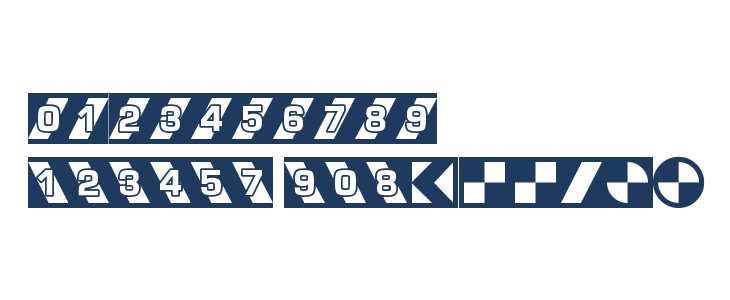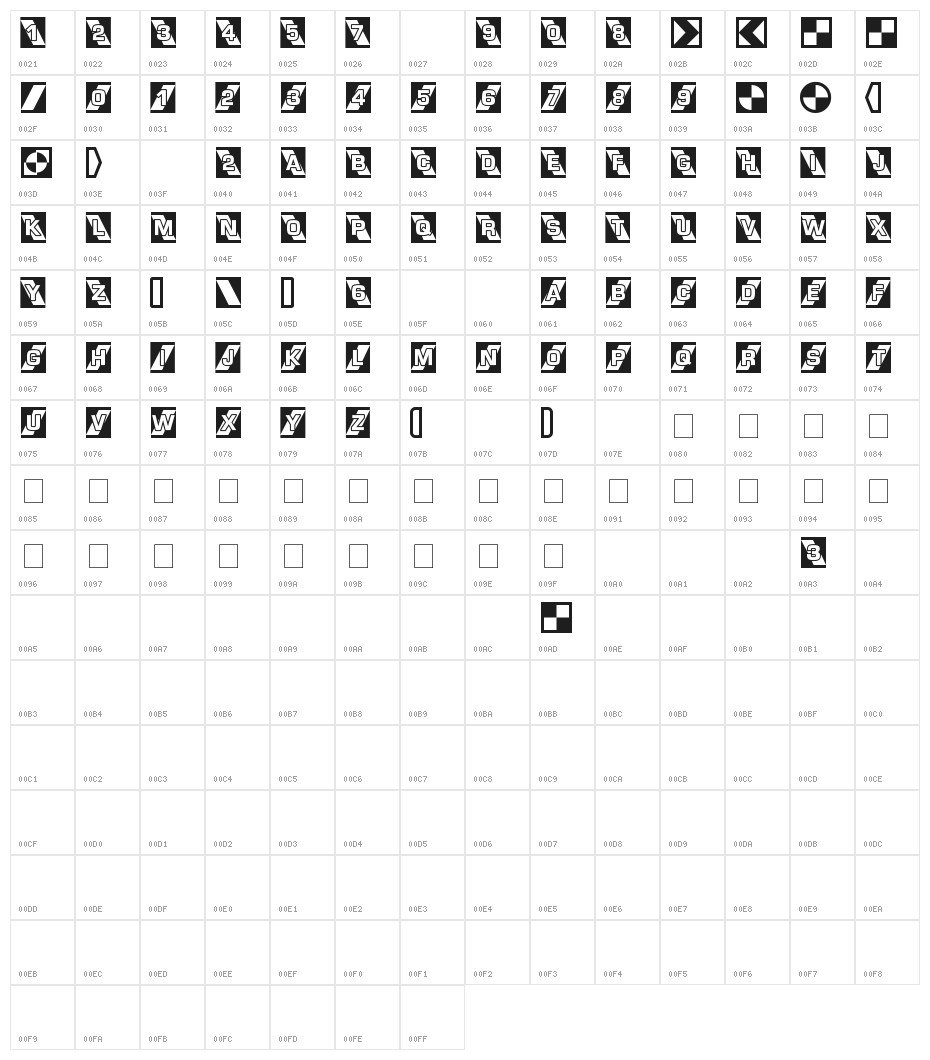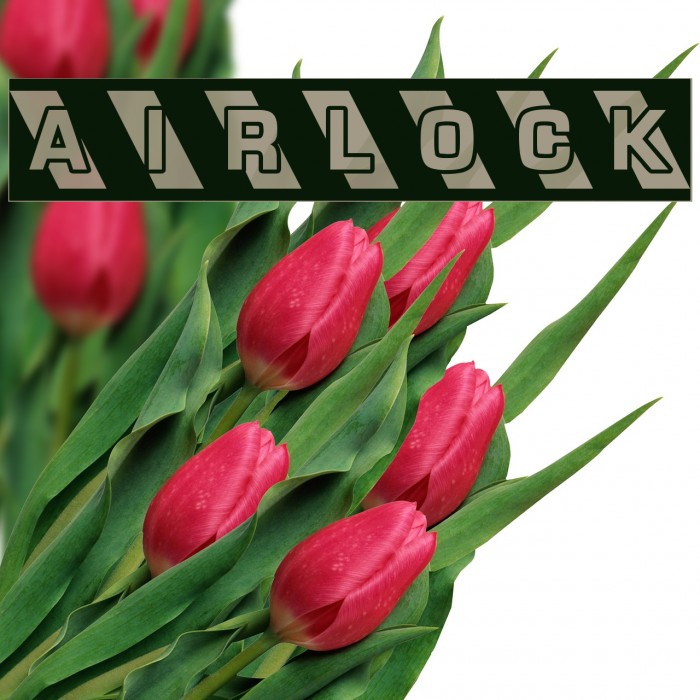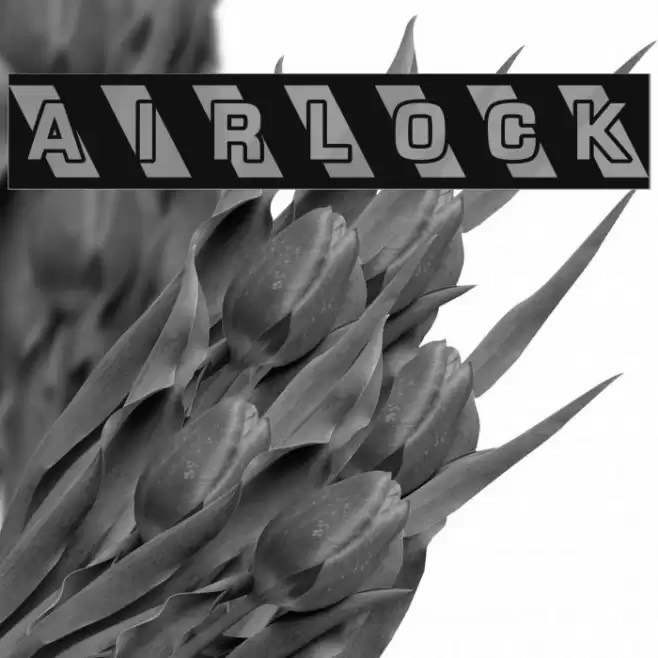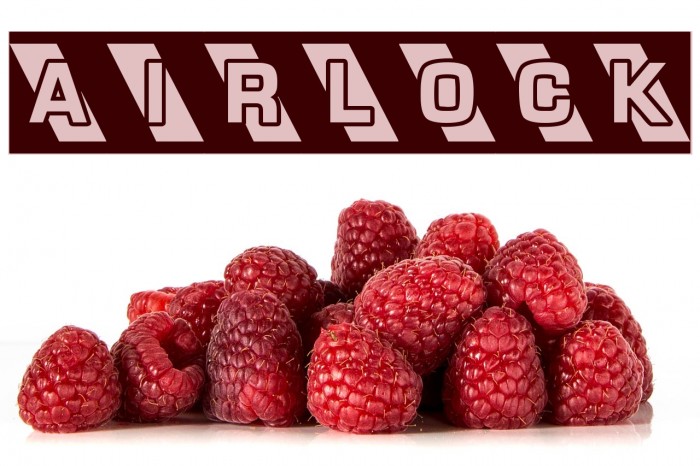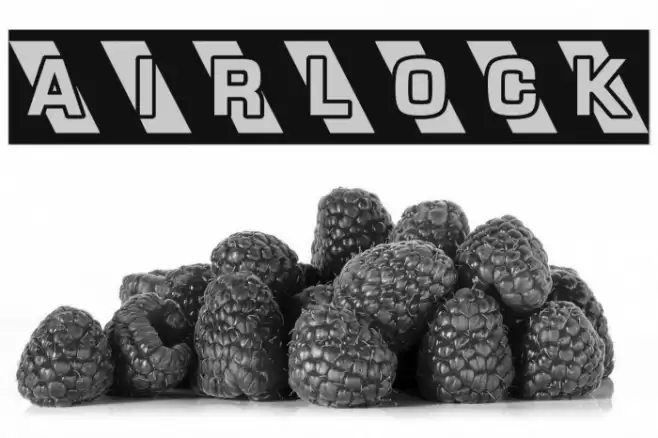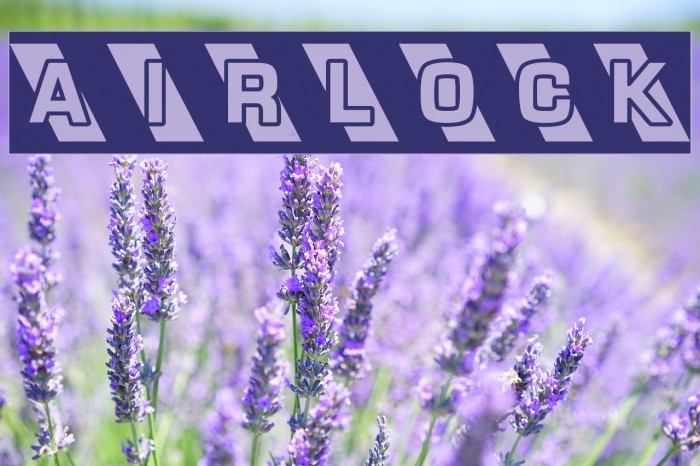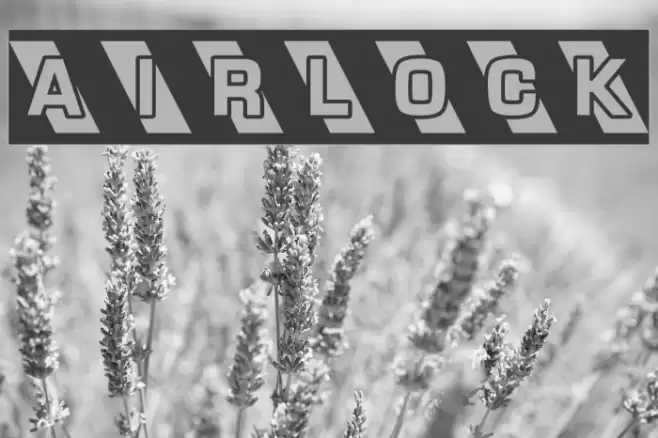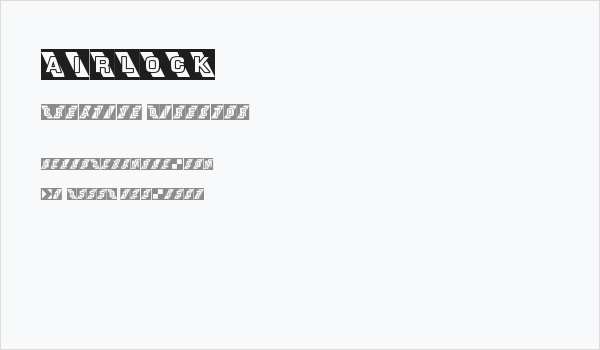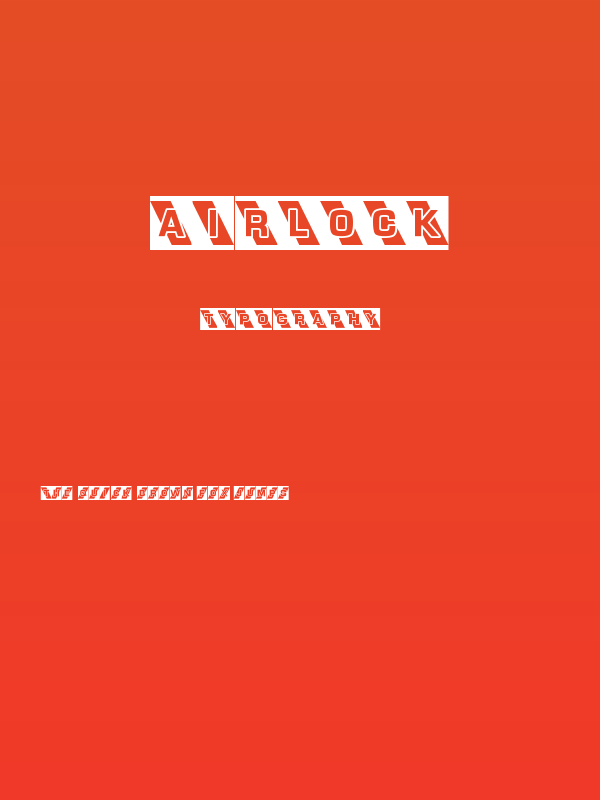
AIRLOCK Font
AIRLOCK Description
This font features a bold, geometric design with a strong 3D effect, created by a diagonal shadow that gives each character a sense of depth and dimension. The letters are uppercase and have a blocky, angular style that is both modern and eye-catching. The numbers and special characters follow the same design principles, ensuring a cohesive look across all characters. The high contrast between the black and white elements enhances the visual impact, making it ideal for attention-grabbing headlines or logos.
| Proposed Projects | Ideal for futuristic designs, tech-related branding, posters, and video game titles. |